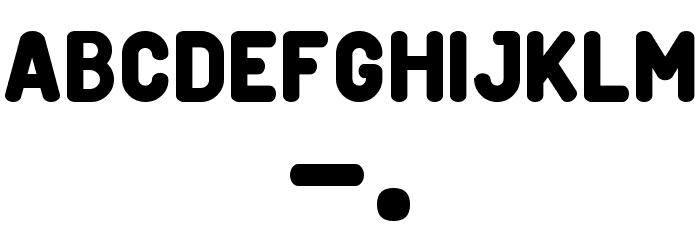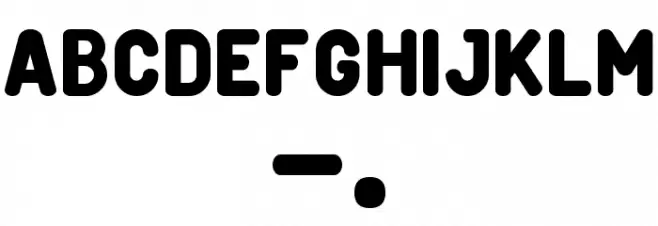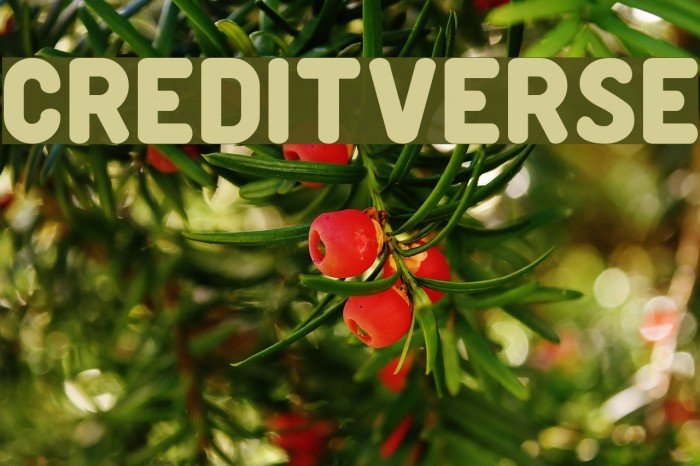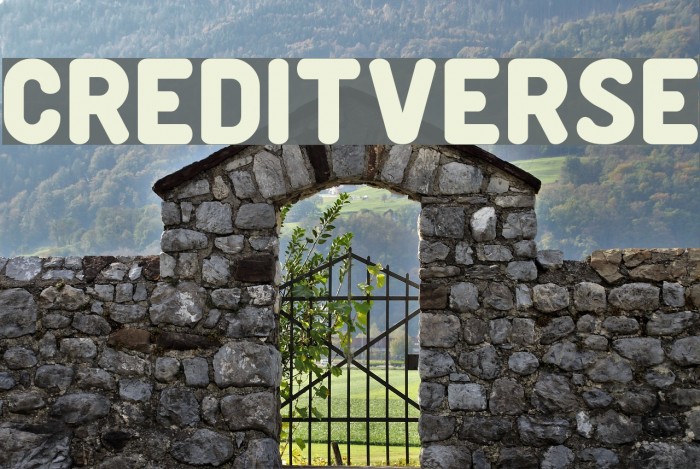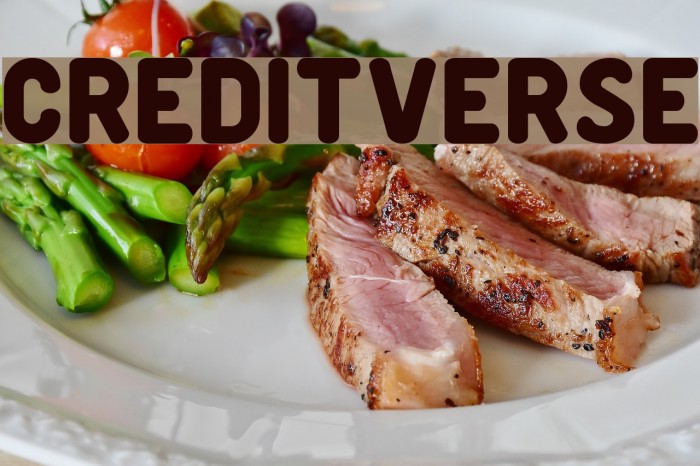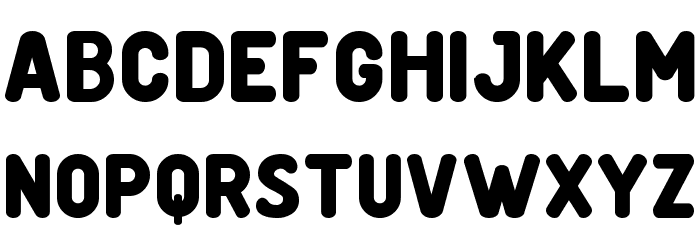
Creditverse Font
Creditverse Description
This font features bold, rounded characters with a modern and playful aesthetic. The uppercase letters are uniform in height, creating a cohesive and balanced appearance. The rounded edges give it a friendly and approachable feel, while the consistent stroke width adds to its boldness. The font lacks lowercase letters and numbers, focusing solely on uppercase characters and a few punctuation marks. Its simplicity and clarity make it suitable for attention-grabbing headlines and logos. The overall style is contemporary, with a hint of retro charm due to its rounded forms.
A bold, rounded, and modern font ideal for headlines and logos from Uncategorized fonts.
- Proposed Projects: This font is perfect for branding projects, logo design, posters, and any application where a bold statement is needed.